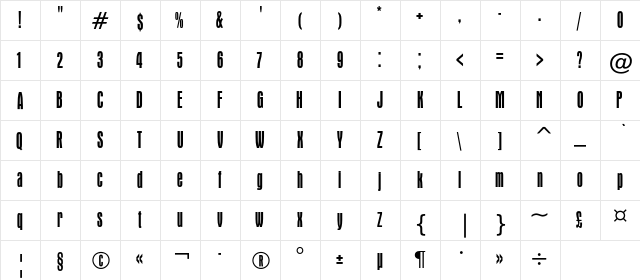
ApicalC Regular
Design Context for ApicalC Typeface
ApicalC takes a measured approach to typography — its balanced proportions and neutral character make it a reliable workhorse for both digital and print work.